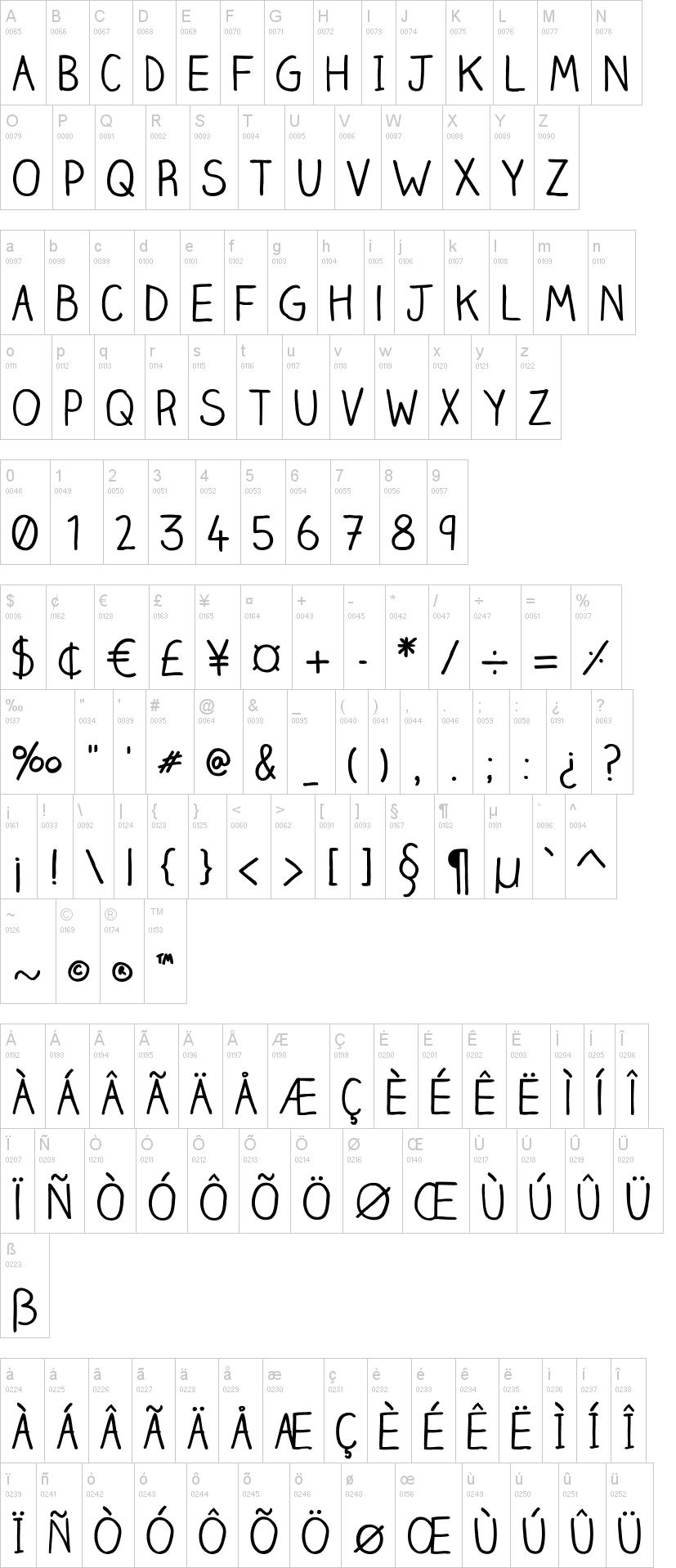
Шрифт Claire Hand
The newly created team scope font Claire Hand is fun, bold and friendly, and its handwritten style represents our commitment to creative spontaneity (you know how the best ideas get scribbled down on a napkin?). Because were serious design tragics, we even created each letter in three different weights so its even more individual.